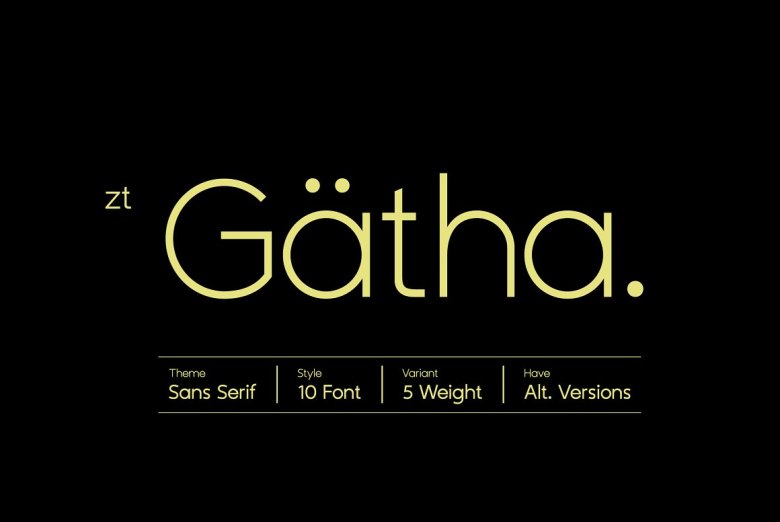
ZT Gatha Font
ZT Gatha is a variant of OT Gatha. However, with the latter, only suited is a more extensive set of sans-serif variants; a normal sans font is the first one, while the second is distinguishable by the fact that the edges of each letter are minimised, creating a unique character with a groove that gently envelops a stylised form. Ten different styles of ZT Gatha, including a full set of striking uppercase and lowercase letters, as well as numbers and several punctuation place, provide a refreshing clean, down-to-earth sans serif style that can be modified to demonstrate outstanding versatility.
Catalogues, Magazines, Posters, Websites, Personal and Corporate Branding, and many other respectable works can all use this typeface, which is also popular because it is hefty.
ZT Gatha Sans Serif Font